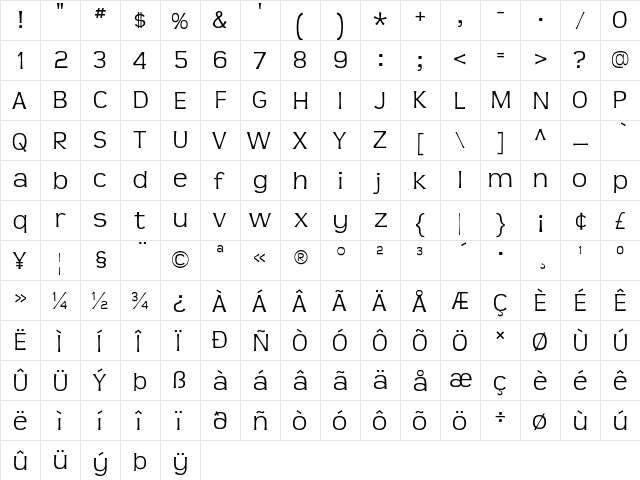
Teen Light
| Foundry | Martin Archer / Ray Larabie |
| Designer | Ray Larabie & Martin Archer |
Design Context for Teen Typeface
Teen offers clean, dependable letterforms without strong stylistic allegiance, making it a practical choice for designers who need flexibility. Its slender proportions lend an understated elegance to any composition.